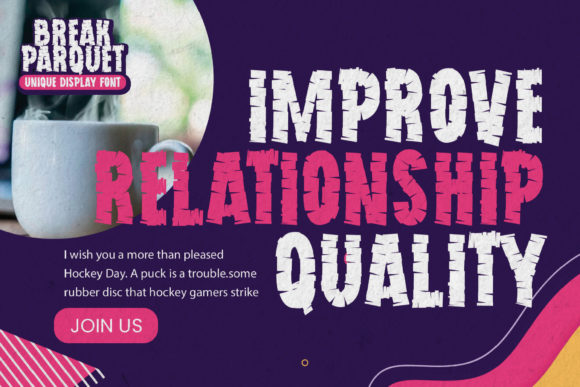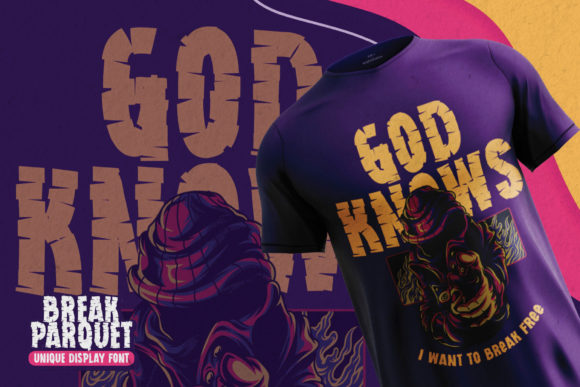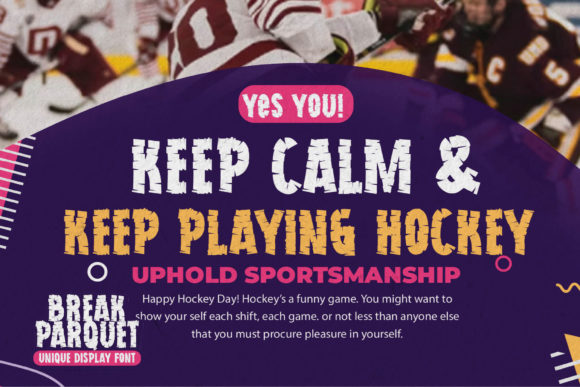
Introduction to Break Parquet Font
Here comes our new font Break Parquet this is a Unique Display Font that is written casually and quickly.
this an Authentic Style and classy style This font is handmade with a unique font Then crafted carefully drawn into a vector format.
Why Choose Break Parquet Font?
Break Parquet Font offers exceptional quality and versatility, making it a valuable addition to your design toolkit. Whether you’re creating for personal projects or commercial use, Break Parquet Font delivers professional results.